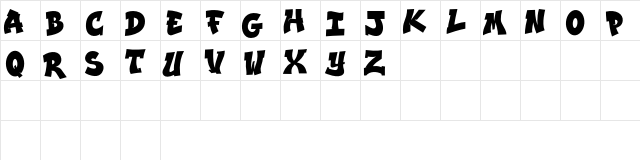
NMF Burner Regular
| Designer | Konrad Bednarski |
Design Context for NMF Burner Typeface
NMF Burner is a composed and adaptable typeface that performs quietly and consistently across a wide range of design contexts.